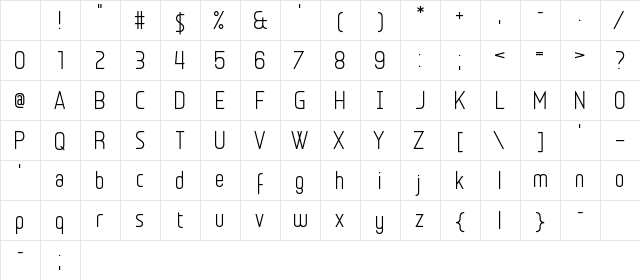
Complete Egosurf Stiffler Regular glyph index. Displaying only characters natively supported by Egosurf Stiffler Regular font.
Egosurf Stiffler is a composed and adaptable typeface that performs quietly and consistently across a wide range of design contexts.